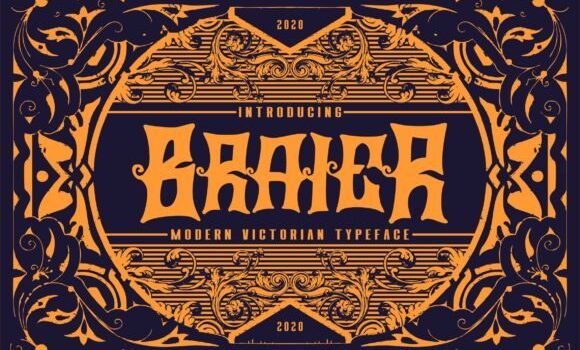
braier
Braier Font – Free Download Introduction to Braier Font Braier is an incredibly unique and interesting display font. 📸 Preview Gallery 5 images 📌 Product Name Braier Font 👤 Author Vunira 📂 Category Explore ⬇️ Download Braier Font FREE Free